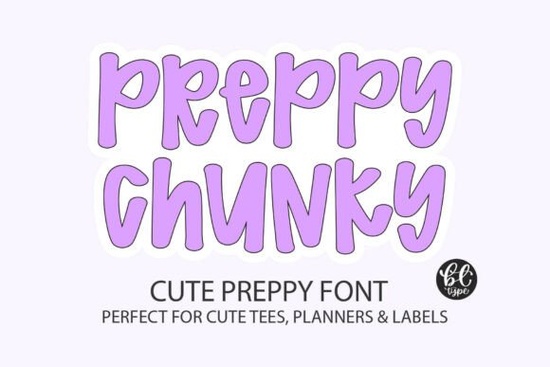
If you’ve been scrolling through display fonts looking for something that feels cheerful without being childish, the Preppy Chunky Font might be exactly what your next project needs. It’s got that bubbly personality rounded edges, bold curves, and just enough quirk to stand out without overwhelming your design. Whether you’re making planner stickers, classroom posters, or merch for your Etsy shop, this font brings a smile without sacrificing readability.
What makes it especially handy is how versatile it is. Teachers love using it for bulletin boards and reward charts. Small business owners slap it on tote bags and mugs. Crafters drop it into Canva templates and SVG files for Cricut projects. And because every letter is uppercase but styled with lowercase quirks (like the “a” and “d”), it feels friendly, not stiff. You can check out the full character set over at Preppy Chunky Font.
Where does this font actually work best?
Here’s the real question: where should you use it and where should you maybe hold back? Based on how it’s built, here are the sweet spots:
- Social media graphics Those bold letters pop even at small sizes, perfect for Instagram quotes or Pinterest pins.
- T-shirts and tote bags The thick strokes hold up well in print, especially on light-colored fabrics.
- Kids’ products Think birthday invites, classroom labels, or baby shower decor. It’s playful but not babyish.
- Digital planners and stickers Clean lines mean it scales down nicely for tiny icons or tab labels.
It’s less ideal for long paragraphs or formal documents. This is a display font, after all not meant for body text. But if you’re layering it over photos, pairing it with minimalist sans-serifs, or using it as a headline in a digital product, it delivers.
You’re getting more than just A–Z. The package comes with over 300 glyphs, which means:
- Alternate characters for stylistic variety
- Ligatures that connect certain letter pairs naturally
- Punctuation and symbols that match the font’s rounded vibe
That kind of detail matters when you’re trying to keep your branding consistent or just want your “Happy Birthday” banner to look extra polished. If you like mixing and matching letter styles, you’ll appreciate how flexible this one is.
How does it compare to other playful display fonts?
If you’ve browsed Creative Fabrica’s display section, you’ve probably seen Speed Race for its retro energy, or Shark Teeth if you’re going for edge. Preppy Chunky sits on the softer side of that spectrum. It’s closer in spirit to Dustero friendly and hand-drawn but with cleaner, bolder lines. For something with a wild west twist, Frontier Outlaw has that rustic charm, but Preppy Chunky is all about modern cheer.
Bottom line: if your brand voice is upbeat, casual, or kid-friendly, this font slots right in. If you’re selling handmade bath bombs, teaching kindergarten, or designing quote art for moms, it’s a natural fit.
Any tips for using it without overdoing it?
Yes. Because it’s so bold and bubbly, restraint is key. Here’s how to keep it looking intentional, not chaotic:
- Pair it with a simple sans-serif. Try Helvetica, Montserrat, or even Arial for contrast.
- Use color wisely. Pastels and brights complement its vibe; avoid muddy tones.
- Don’t stretch or distort it. The curves are designed to look balanced as-is.
- Limit yourself to one or two words per line. It’s meant to grab attention, not carry paragraphs.
And if you’re using it for POD (print-on-demand), test your mockups at actual print size. Sometimes what looks cute on screen gets lost on fabric or paper. Always preview before hitting publish.
Who’s already using this font successfully?
Teachers are big fans it’s legible from across the room and doesn’t feel corporate. Etsy sellers use it for everything from water bottle decals to nursery wall art. Even coaches and camp directors throw it on t-shirts and event flyers. The common thread? They’re all creating things meant to feel welcoming, fun, and personal.
You don’t need fancy design skills to make it work. Drop it into Canva, Silhouette Studio, or Photoshop, pick a coordinating color, and you’re halfway there.
Quick checklist before you hit download:
- Do you need a font for short headlines or decorative text? ✔️
- Is your audience young, creative, or casual? ✔️
- Are you okay with uppercase-only styling (with cute lowercase shapes)? ✔️
- Do you want alternates and ligatures for extra polish? ✔️